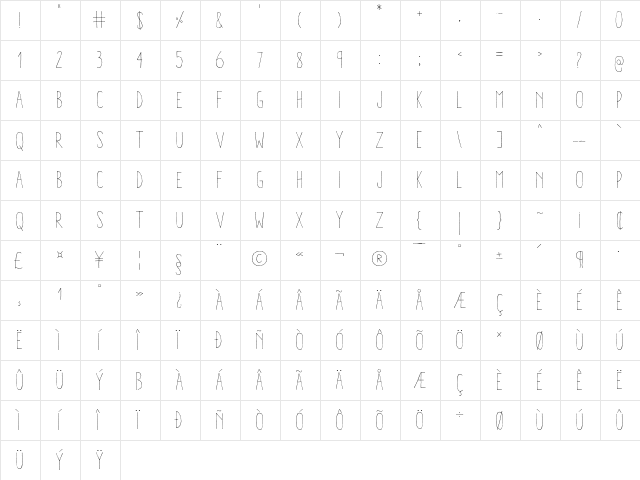
Aracne Condensed Light Condensed Light
| Foundry | Julia Martinez Diana, Antipixel. |
| Designer | Julia Martinez Diana, Antipixel |
Design Context for Aracne Condensed Light Typeface
Aracne Condensed Light is a composed and adaptable typeface that performs quietly and consistently across a wide range of design contexts. The delicate stroke weight brings airiness and refinement to layouts. Its narrow stance lets it pack a punch even in space-constrained designs.